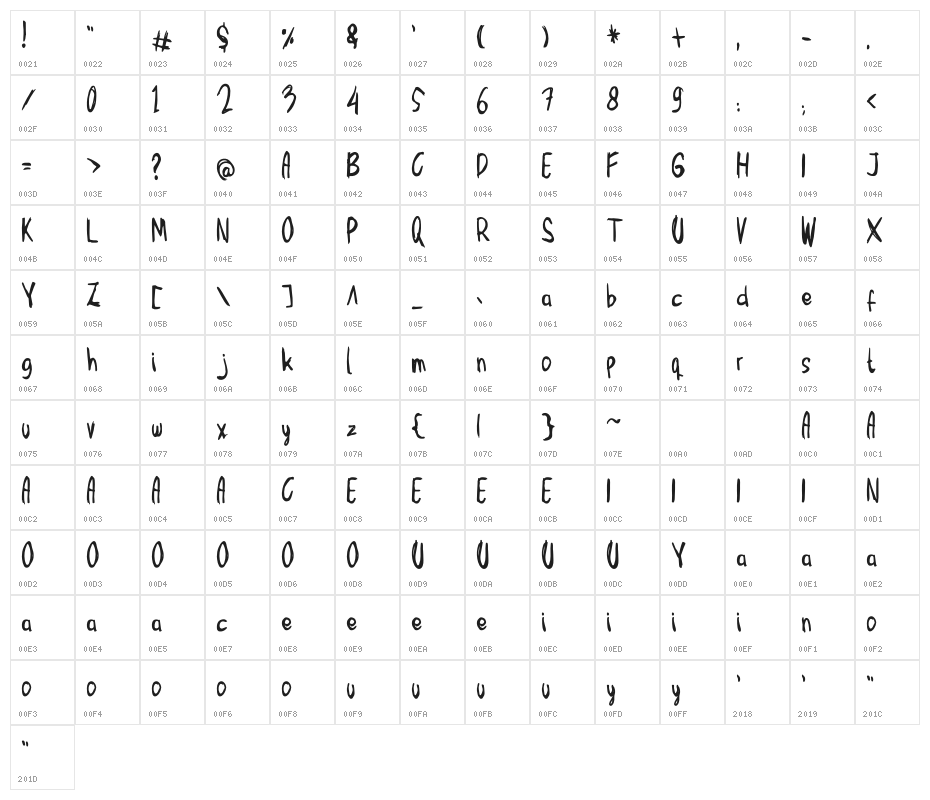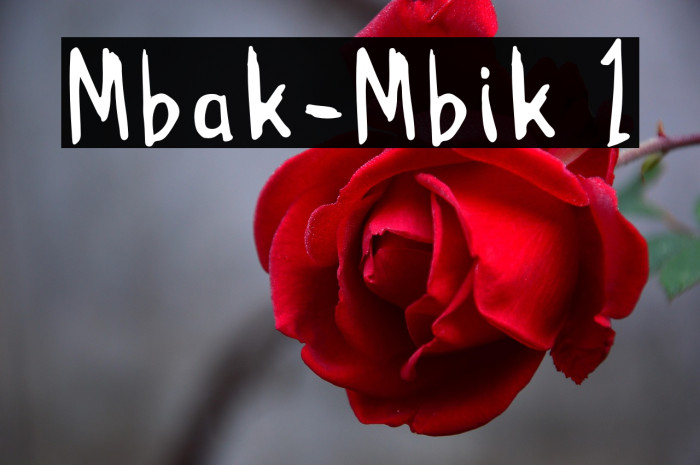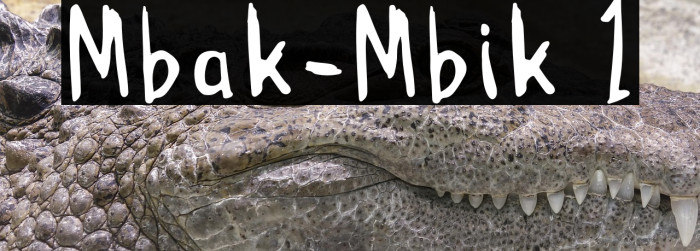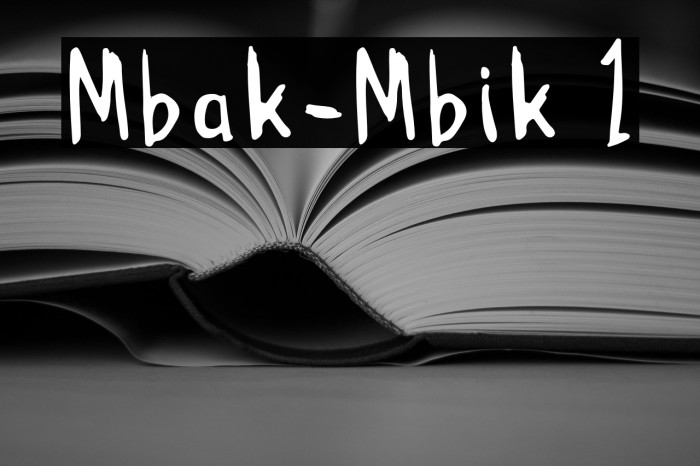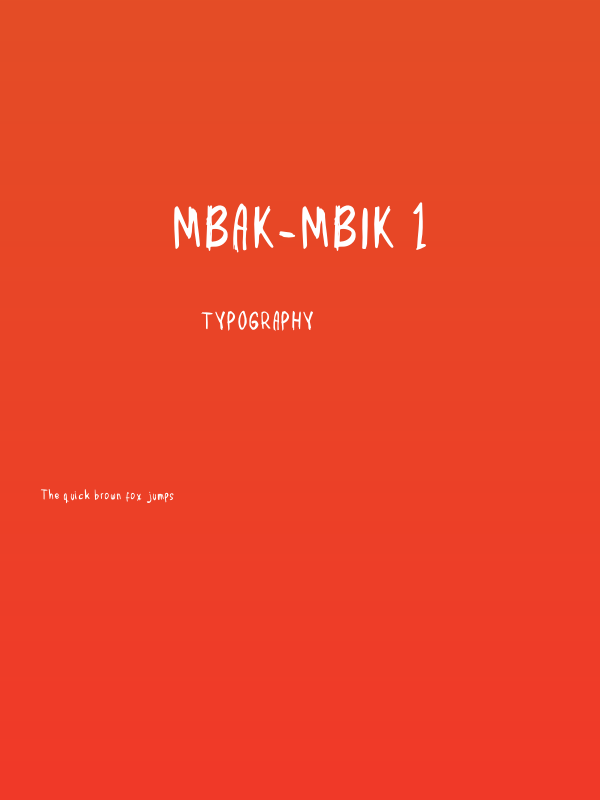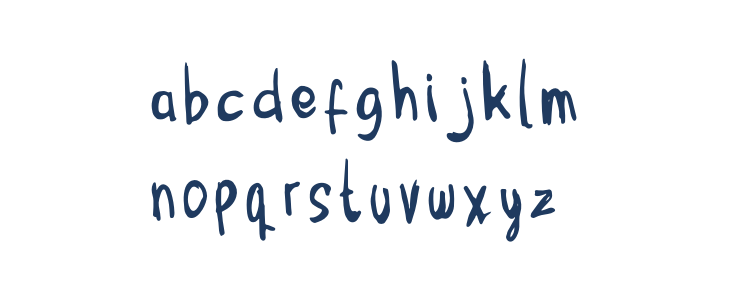
Mbak-Mbik 1 Font
Mbak-Mbik 1 Description
This font exhibits a playful and energetic handwritten style, characterized by its bold and irregular strokes. The letters have a casual, informal appearance, with varying thickness that adds a dynamic and lively feel. The uppercase letters are tall and slightly narrow, while the lowercase letters maintain a consistent height, contributing to a cohesive look. The numbers and special characters follow the same playful aesthetic, making the font suitable for creative and informal projects. The overall design is expressive, with a touch of whimsy, ideal for capturing attention and conveying a sense of fun.
| Proposed Projects | Ideal for children's books, playful branding, casual invitations, and creative posters. |